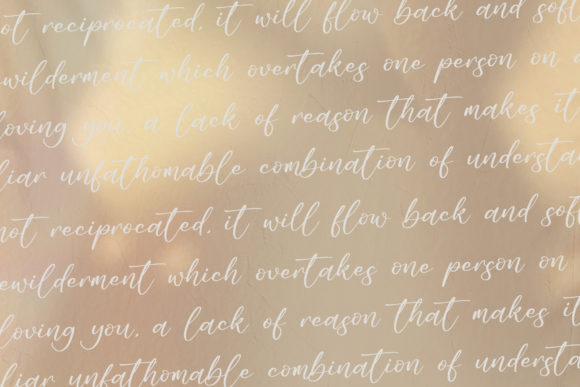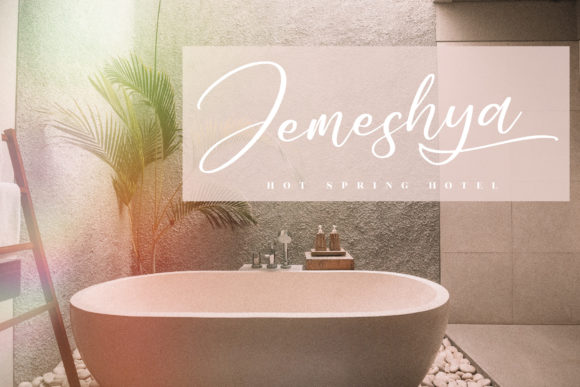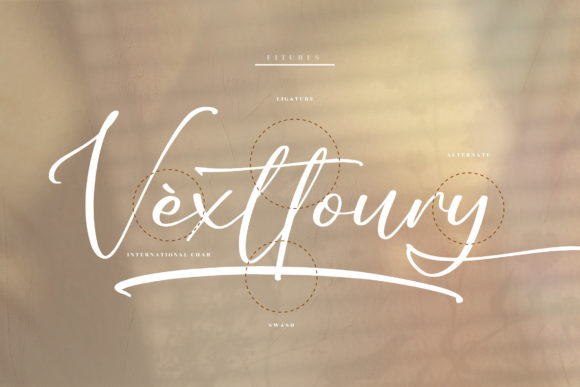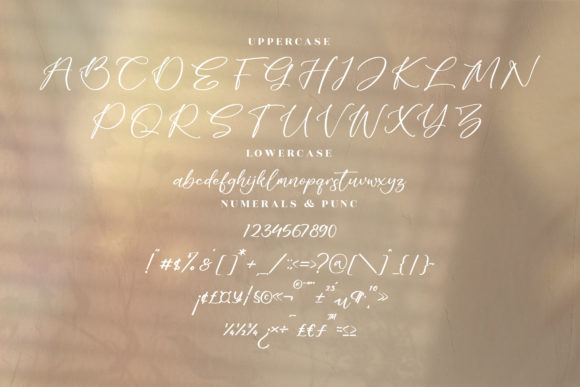
About Jelliyta Font
Jelliyta is a beautiful script font, suitable for any projects such as logos, branding projects, homeware designs, product packaging, mugs, quotes, posters, shopping bags, t-shirts, book covers, name cards, invitation cards, greeting cards, labels, photography, watermark, special events, and all your other lovely projects that need a beautiful script taste.